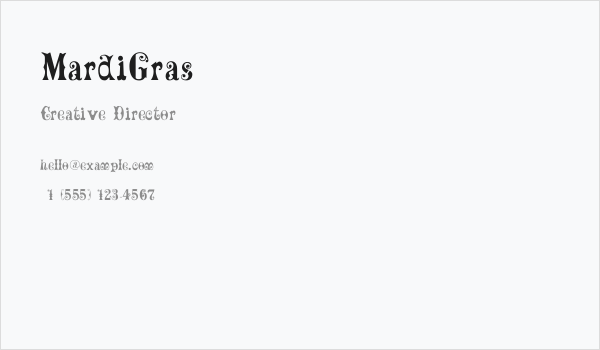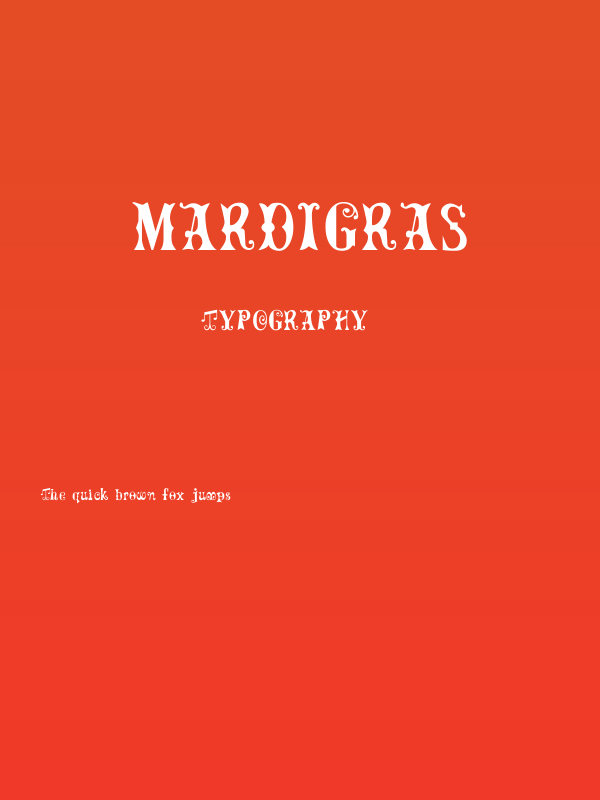
MardiGras Font
MardiGras Description
This font is a playful and whimsical typeface with a distinct decorative flair. Each character is uniquely crafted with ornate details, featuring swirls and curls that give it a festive and lively appearance. The uppercase letters are bold and eye-catching, while the lowercase letters maintain the same decorative style with a slightly more subdued presence. The numbers and special characters continue the theme with intricate designs that add to the overall charm. This font exudes a sense of celebration and is perfect for projects that require a touch of fun and creativity.
Proposed ProjectsIdeal for party invitations, festive posters, and creative branding projects.